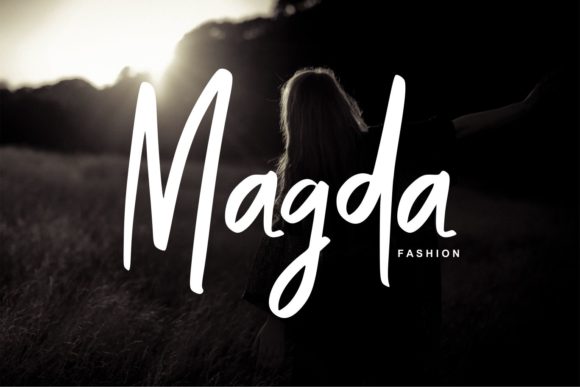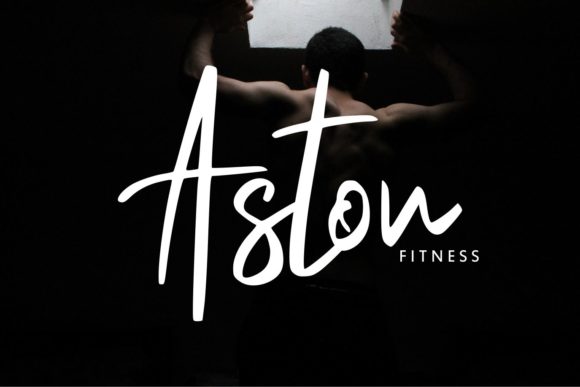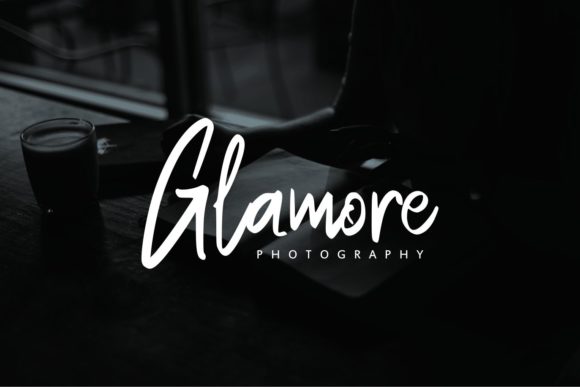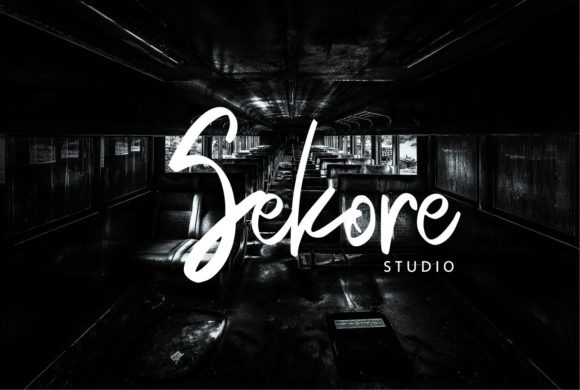
HomeScript FontsBalistik Font Script Fonts Balistik Font FacebookXPinterestWhatsApp Balistik Font Poster 2 Balistik Font Poster 3 Balistik Font Poster 4 Balistik Font Poster 5 About Balistik Font Organically blending a bouncy baseline with authentic hand-lettering, Balistik is a one-of-a-kind script. DOWNLOAD ON CREATIVE FABRICAThis font is sold and delivered by Creative Fabrica. Font Canyon may earn a commission if you buy through this link. People also explored Unique Swirly Font Strawberry Bubblegum Font Gondess Font Raelyn Lemonade Party Font Worthness Font Northingtown Font Brougets Script Font Rosereta Font 328 0 TagsBalistik Font Previous articleJagalana FontNext articleSilloute Font LEAVE A REPLY Cancel reply Comment: Please enter your comment! Name:* Please enter your name here Email:* You have entered an incorrect email address! Please enter your email address here Website: Save my name, email, and website in this browser for the next time I comment. Personal Use Free Vincent Familiante Personal Use Free Read more about this font Mama Personal Use Free Read more about this font Miss Love Personal Use Free Read more about this font Barbatrick Personal Use Free Read more about this font BLOG Top 10 Handwritten Fonts That Elevate Your Designs Top 10 Handwritten Fonts That Will Elevate Your Designs Handwritten fonts bring a warm, personal touch to every creative project. Whether you're designing logos, invitations,... Best Fonts for T-Shirt Design – Top 2025 Picks Modern Sans-Serif Fonts That Brands Love in 2025 To increase your work productivity, choose the most readable fonts.